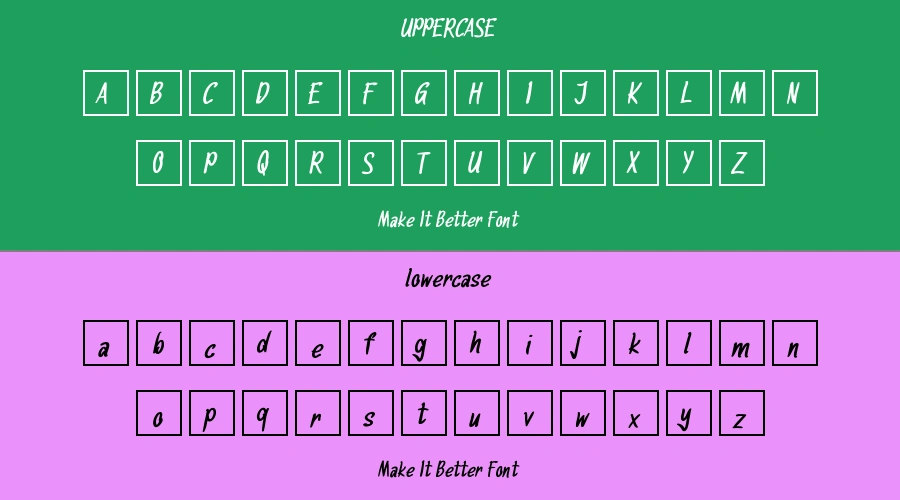
About Make It Better Font
When typographic excellence matters most, Make It Better Font delivers through its thoughtful blend of playful elements and uniqueness. Specially crafted for editorial design, it offers the longevity and artistic value required for sophisticated design work. Every detail serves a purpose.
The character set showcases thoughtful details like alternates alongside functional mathematical symbols. This proves especially valuable in creative titles, where performance directly influences results. Particular attention was paid to crossbar height and cultural context during development.